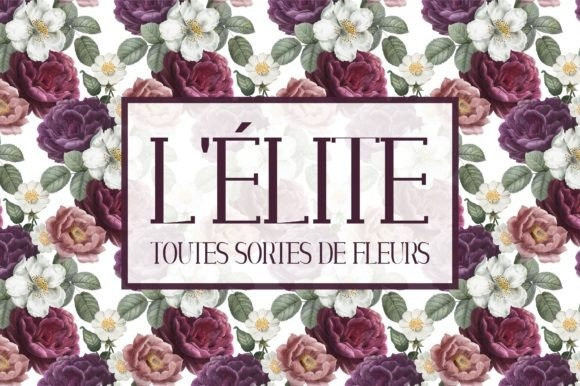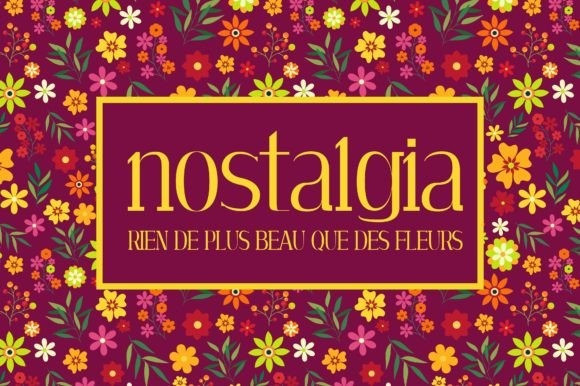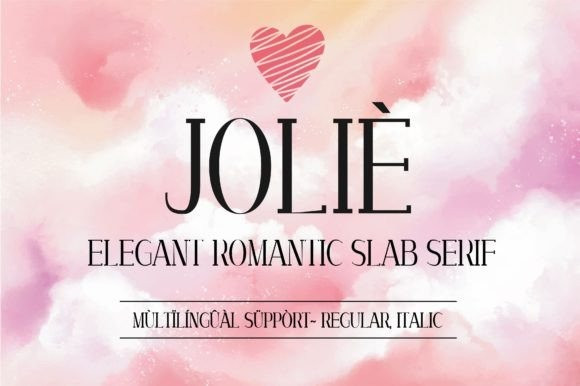
Joliè Slab Font
Joliè Slab Font is a romantic elegant slab serif typeface. It works best when used in titles and when a romantic nostalgic aspect is required for a certain design. It can be used for invitations, weddings, magazine covers, website homepage covers, packaging, etc.